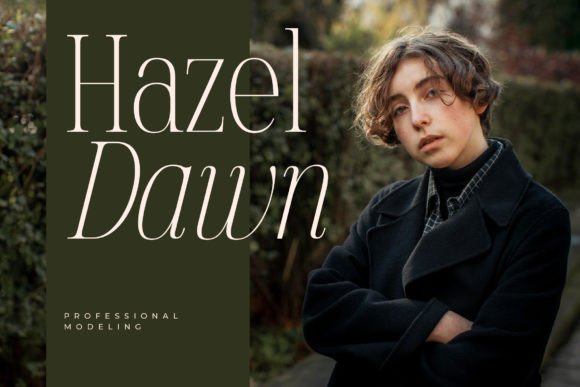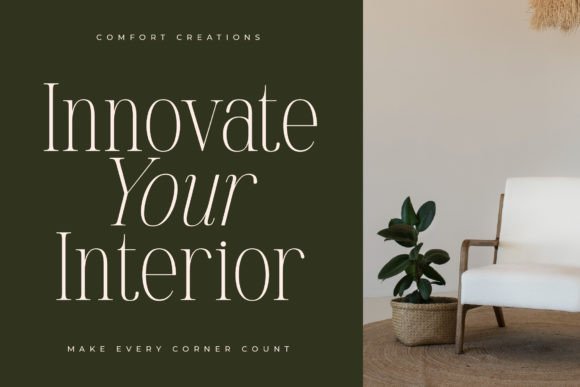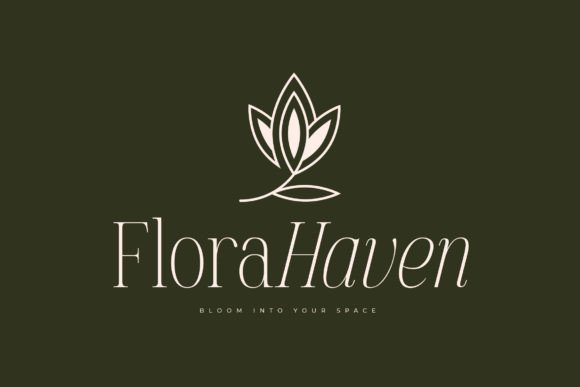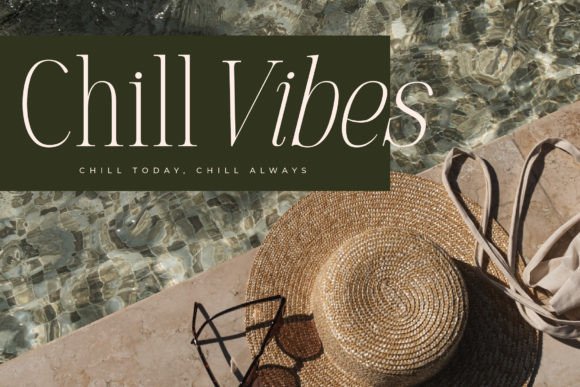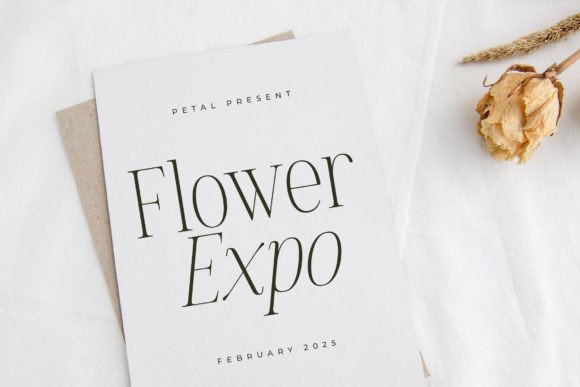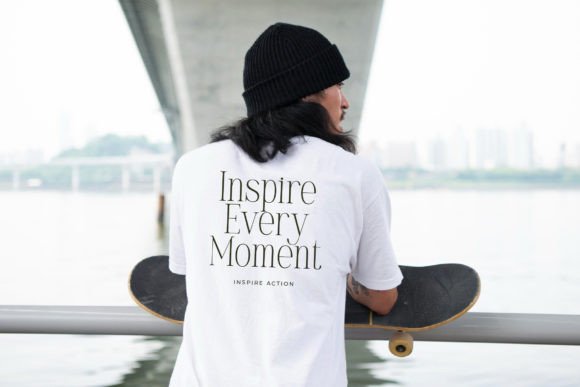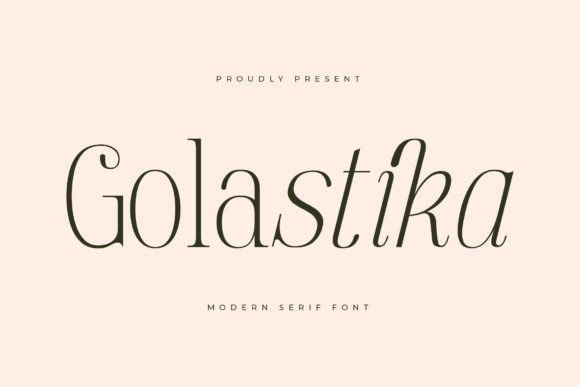
Golastika Font: Elevate Your Designs with Modern Elegance and Sophistication
In the world of typography, fonts play a crucial role in conveying the tone and personality of a brand or design. For designers and crafters seeking to add a touch of refinement and sophistication to their projects, the Golastika font is an excellent choice. This stylish serif font exudes modern elegance, making it perfect for editorial design, branding, and luxury packaging.
The Characteristics of Golastika Font
Golastika is a carefully crafted serif font that boasts clean lines and subtle curves. Its design strikes a perfect balance between classic and contemporary, making it versatile for various applications. The font’s modern elegance is characterized by:
• Clean Lines: Golastika’s lines are precise and uncomplicated, giving the font a crisp and fresh appearance.
• Subtle Curves: The font’s curves are delicate and refined, adding a touch of sophistication to its overall design.
• Serif Details: The serifs are carefully designed to provide a sense of tradition and elegance, while maintaining a modern feel.
Applications of Golastika Font
Golastika’s versatility makes it suitable for a wide range of design applications, including:
• Editorial Design: Use Golastika to add a touch of sophistication to magazines, newspapers, and books.
• Branding: The font’s modern elegance makes it perfect for luxury brands, high-end products, and services.
• Luxury Packaging: Golastika is ideal for packaging designs that require a sense of refinement and sophistication.
Benefits of Using Golastika Font
By incorporating Golastika into your designs, you can:
• Elevate Your Brand: Add a touch of sophistication and elegance to your brand’s visual identity.
• Stand Out: Golastika’s unique design ensures that your designs stand out from the crowd.
• Enhance Readability: The font’s clean lines and subtle curves make it easy to read, even in small sizes.
Tips for Using Golastika Font Effectively
To get the most out of Golastika, consider the following tips:
• Pair with Sans-Serif Fonts: Combine Golastika with sans-serif fonts to create a striking contrast.
• Use in Headlines and Titles: Golastika is perfect for headlines and titles, where its elegance and sophistication can shine.
• Experiment with Colors: Try Golastika with different colors to find the perfect combination for your design.
In conclusion, Golastika is a stylish serif font that offers a perfect blend of modern elegance and sophistication. Its clean lines, subtle curves, and serif details make it an excellent choice for designers and crafters seeking to elevate their designs. With its versatility and range of applications, Golastika is sure to become a go-to font for luxury branding, editorial design, and high-end packaging.